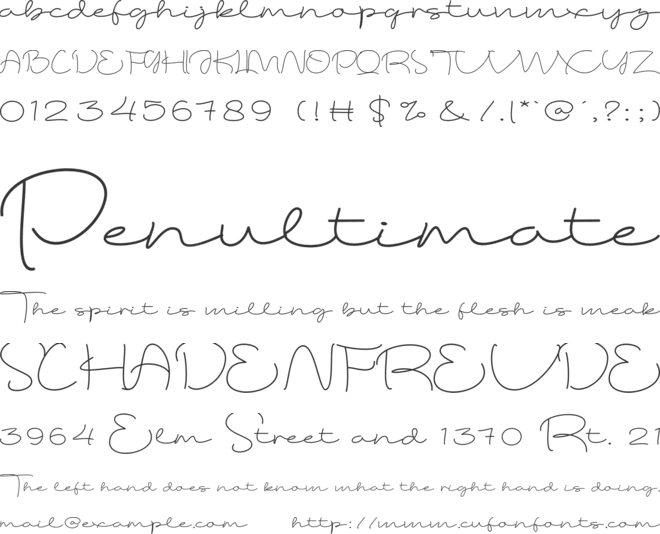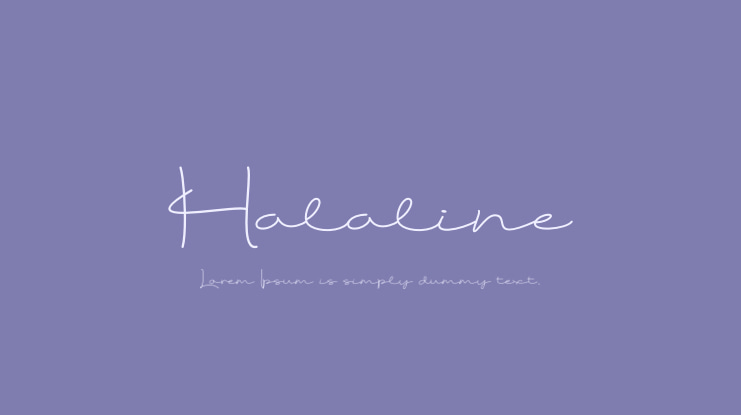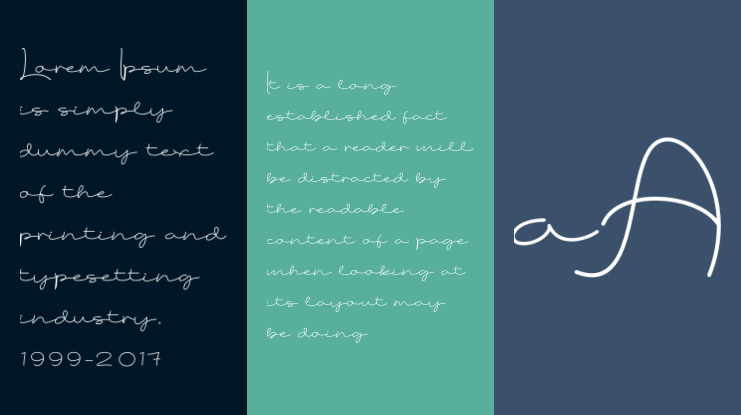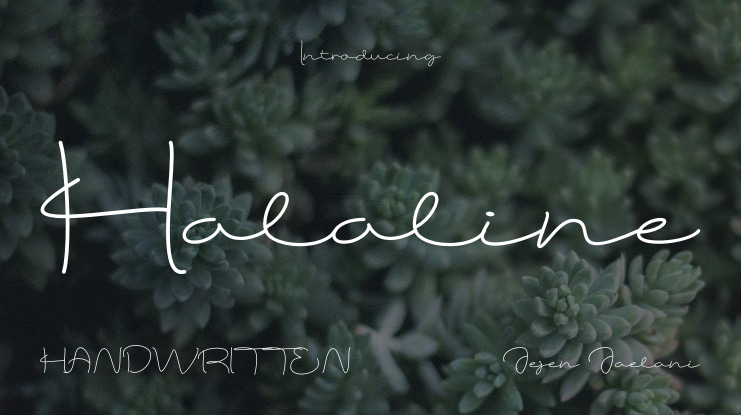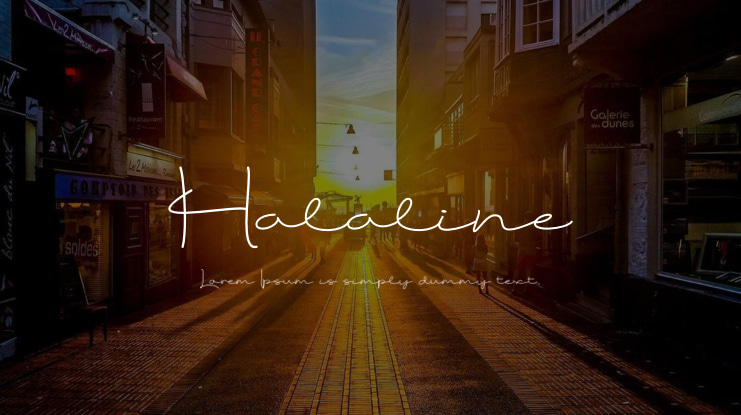
Halaline Font
Introducing "Halaline," a modern script font that exudes elegance and fluidity. With its smooth curves and flowing strokes, Halaline creates a harmonious blend of contemporary style and classic script elements. Perfect for branding, invitations, and logos, this font offers a sophisticated yet approachable feel. Its carefully crafted letters connect seamlessly, making it ideal for designs that require a touch of refined artistry. Halaline is versatile, with alternative glyphs and swashes to enhance your creative projects, giving each piece a unique, personal flair while maintaining a sleek, modern look.
• Numerals and Punctuation
• Multilingual Support